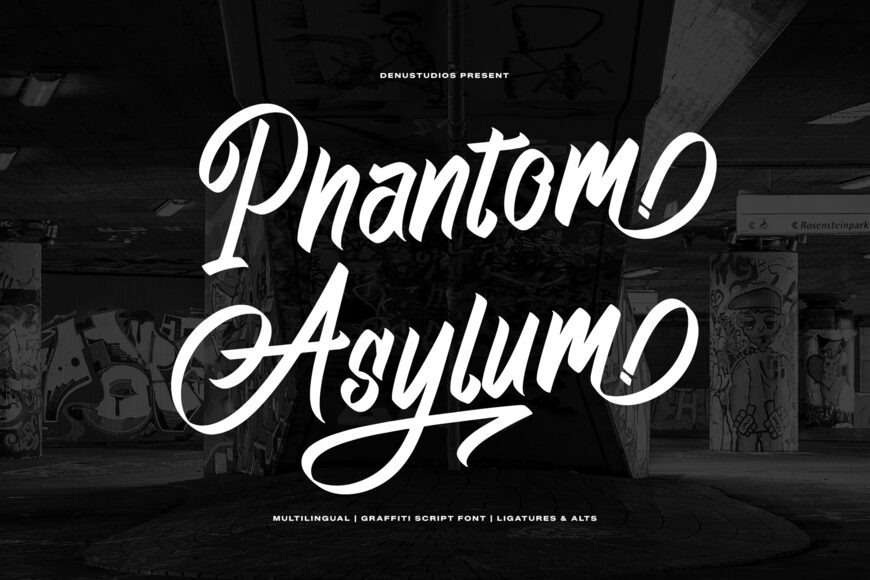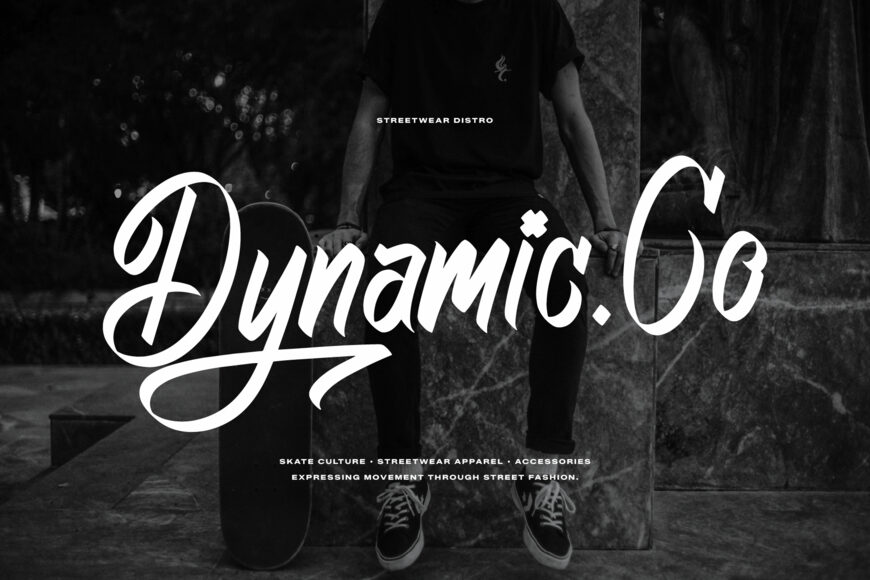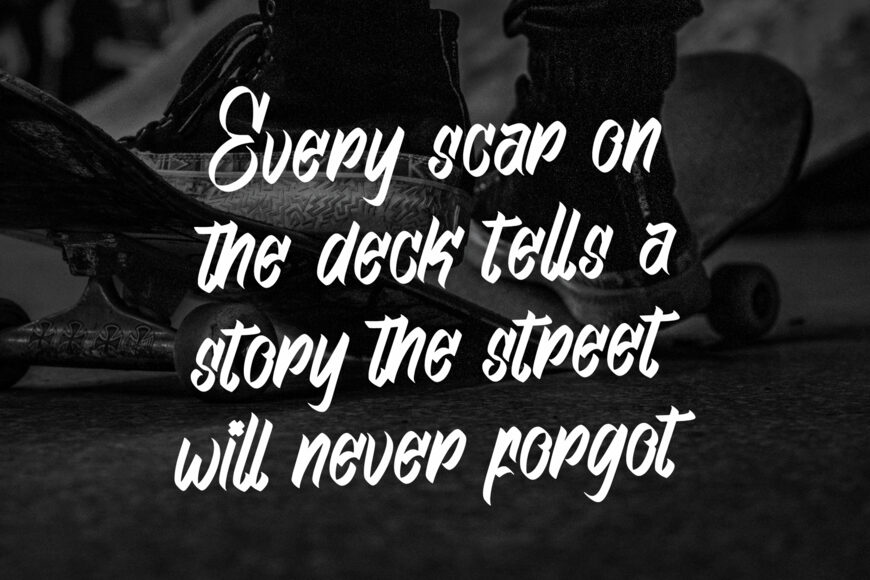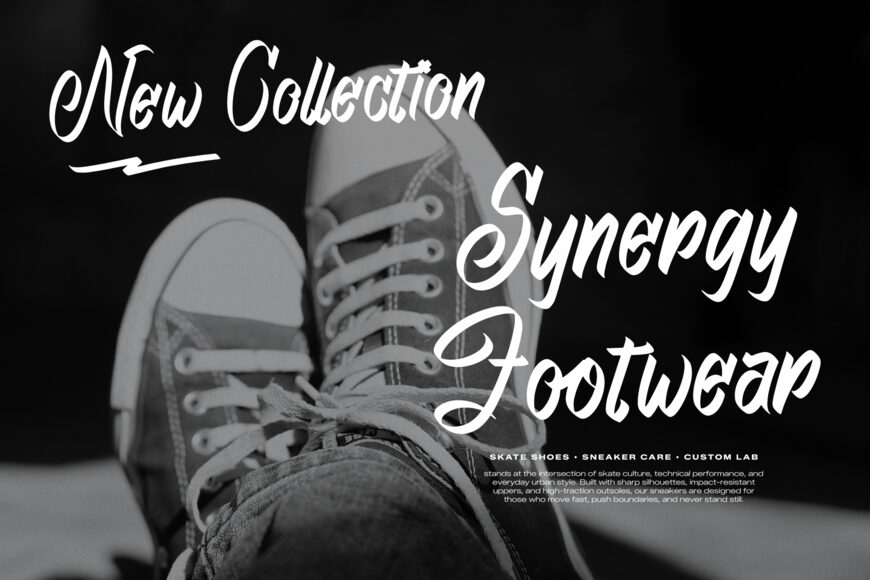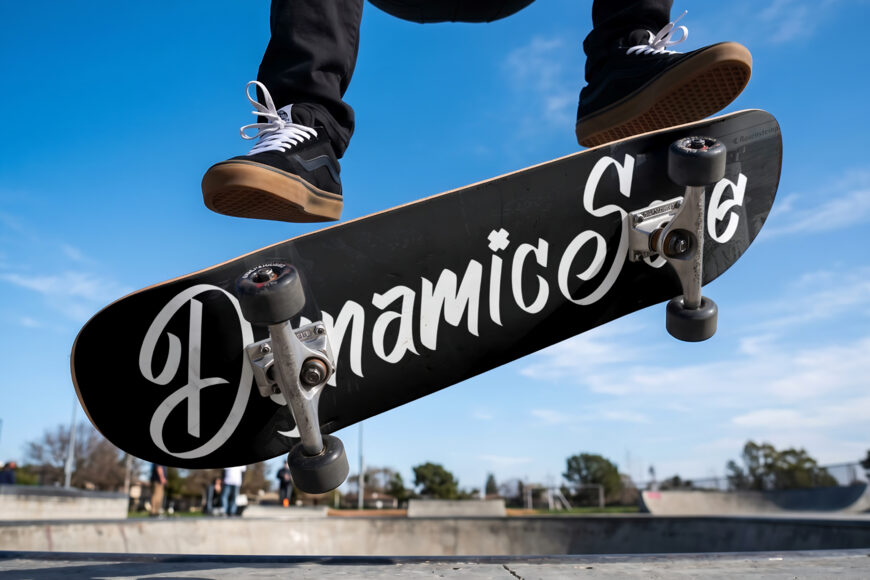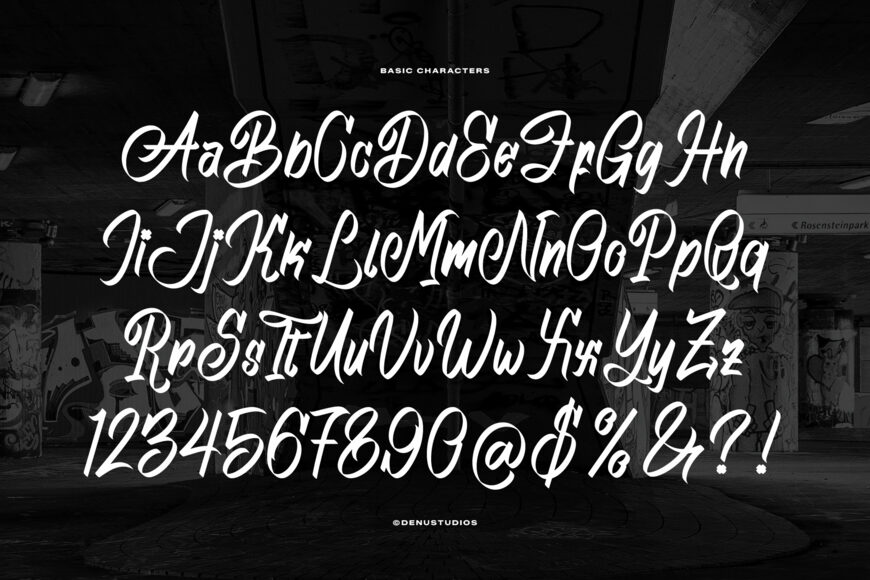
Phantom Asylum Font
Phantom Asylum is a bold graffiti script font by Denustudios, combining energetic brush strokes with a rough, hand-drawn urban style. Its expressive letterforms are ideal for posters, apparel, packaging, logos, book covers, invitations, and street-inspired branding.